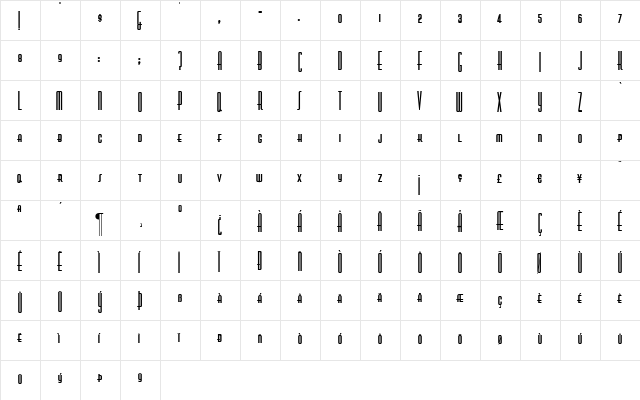
Nickodemus Extremus Font Preview
Nickodemus Extremus
Nickodemus Extremus Font Details
Design Context for Nickodemus Typeface
Nickodemus is a composed and adaptable typeface that performs quietly and consistently across a wide range of design contexts.